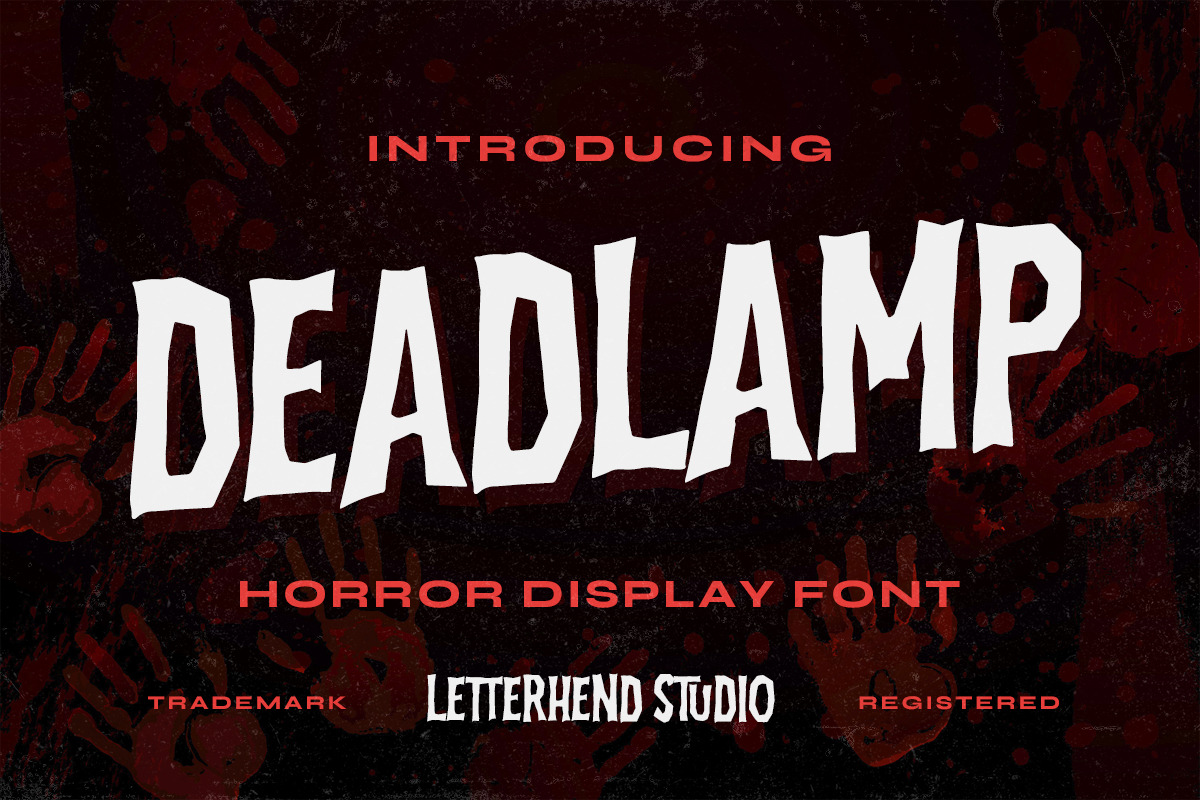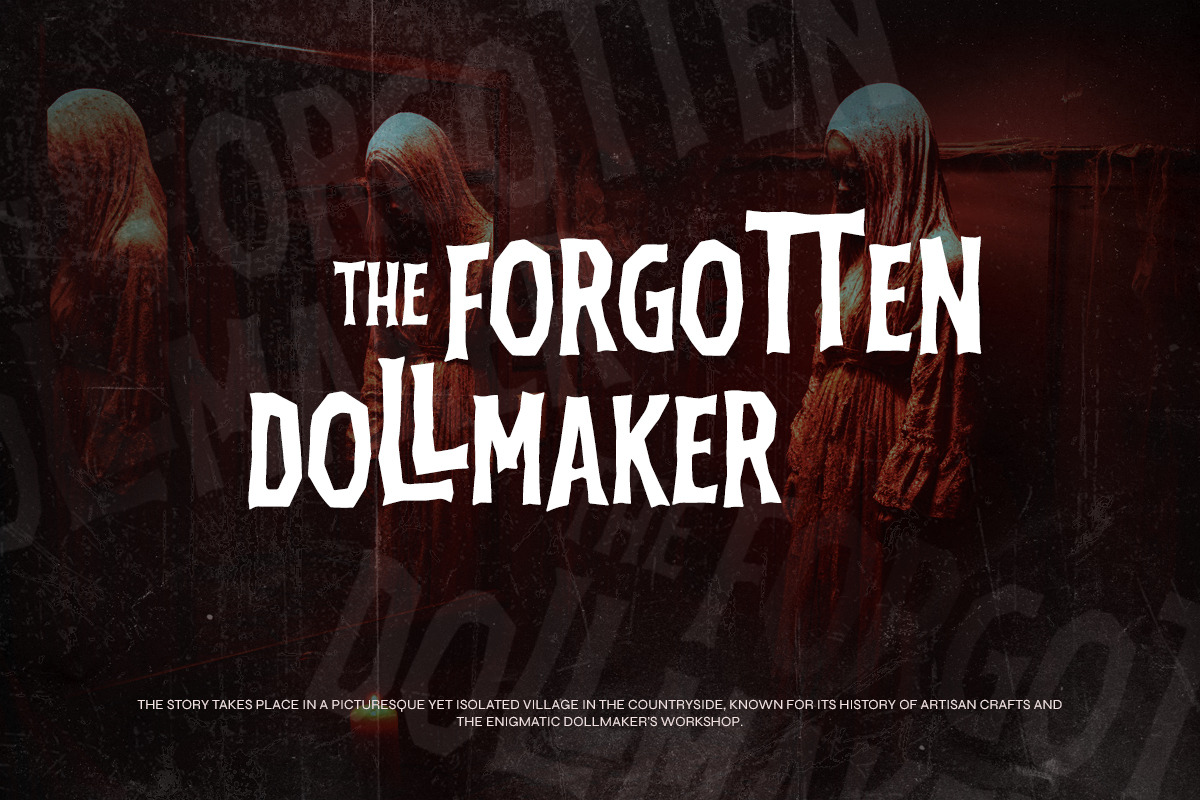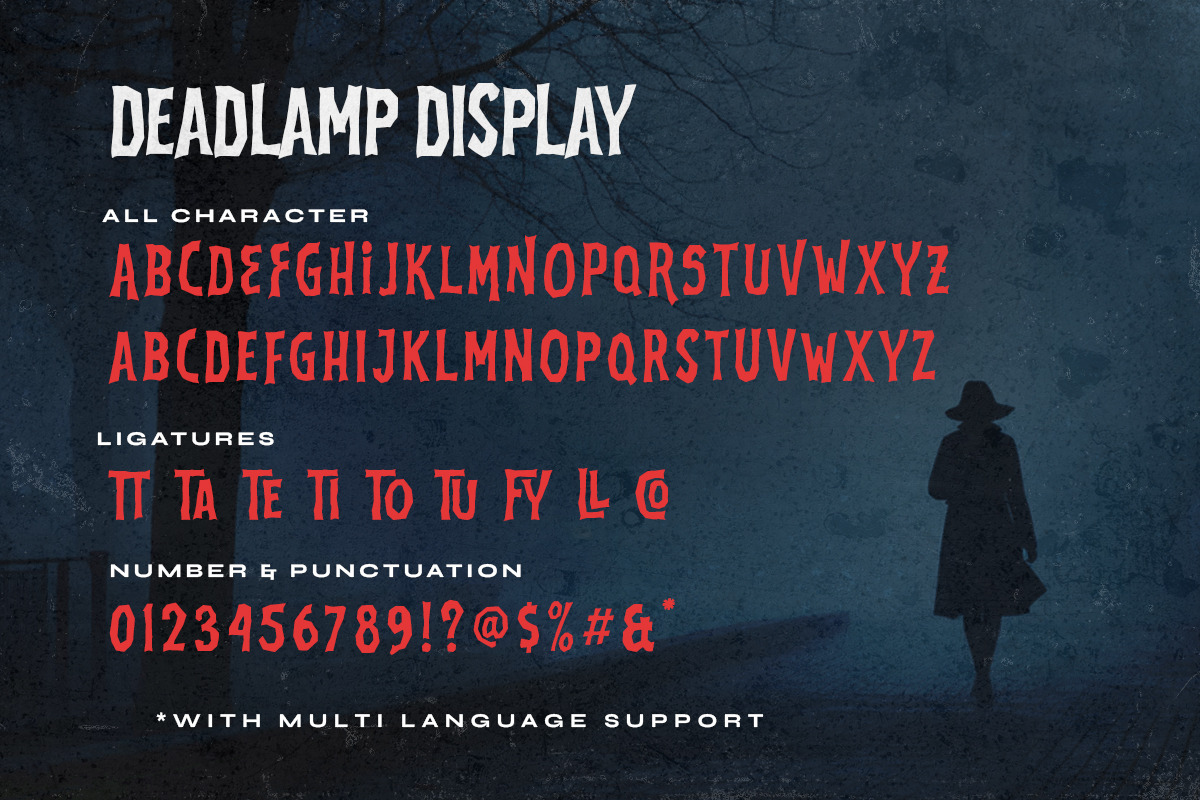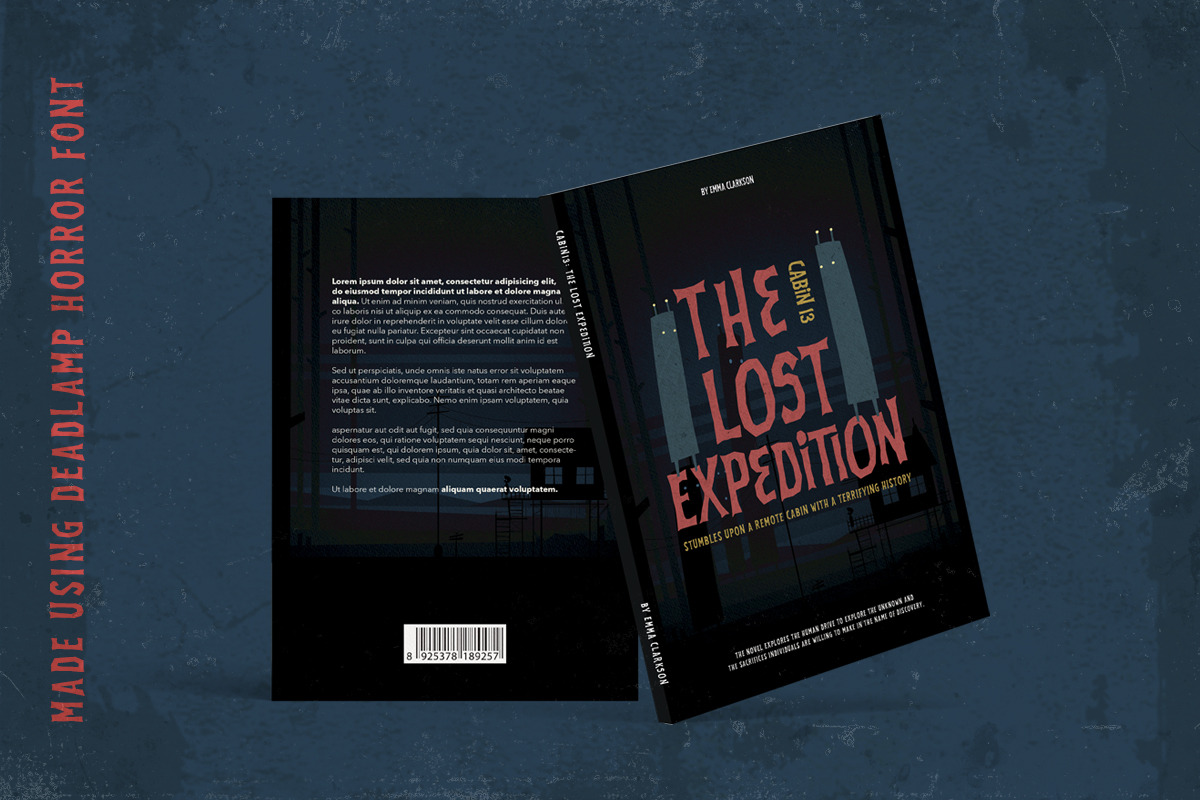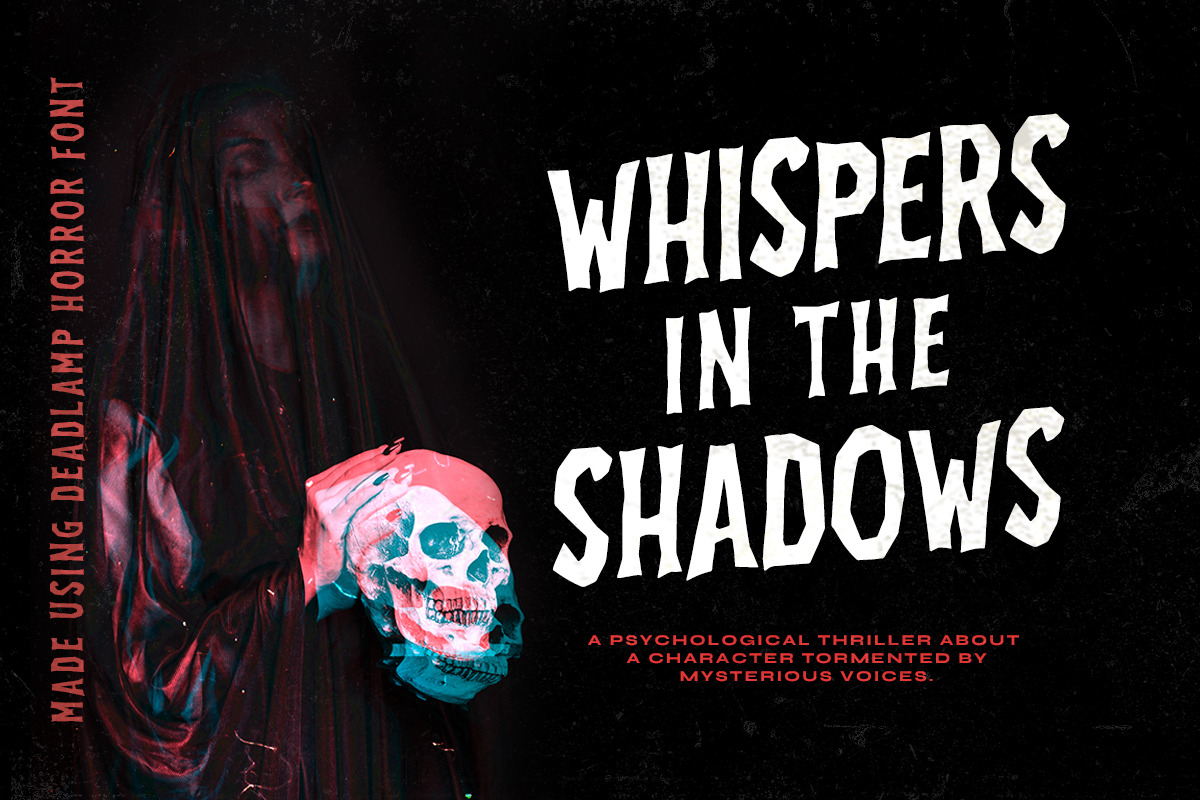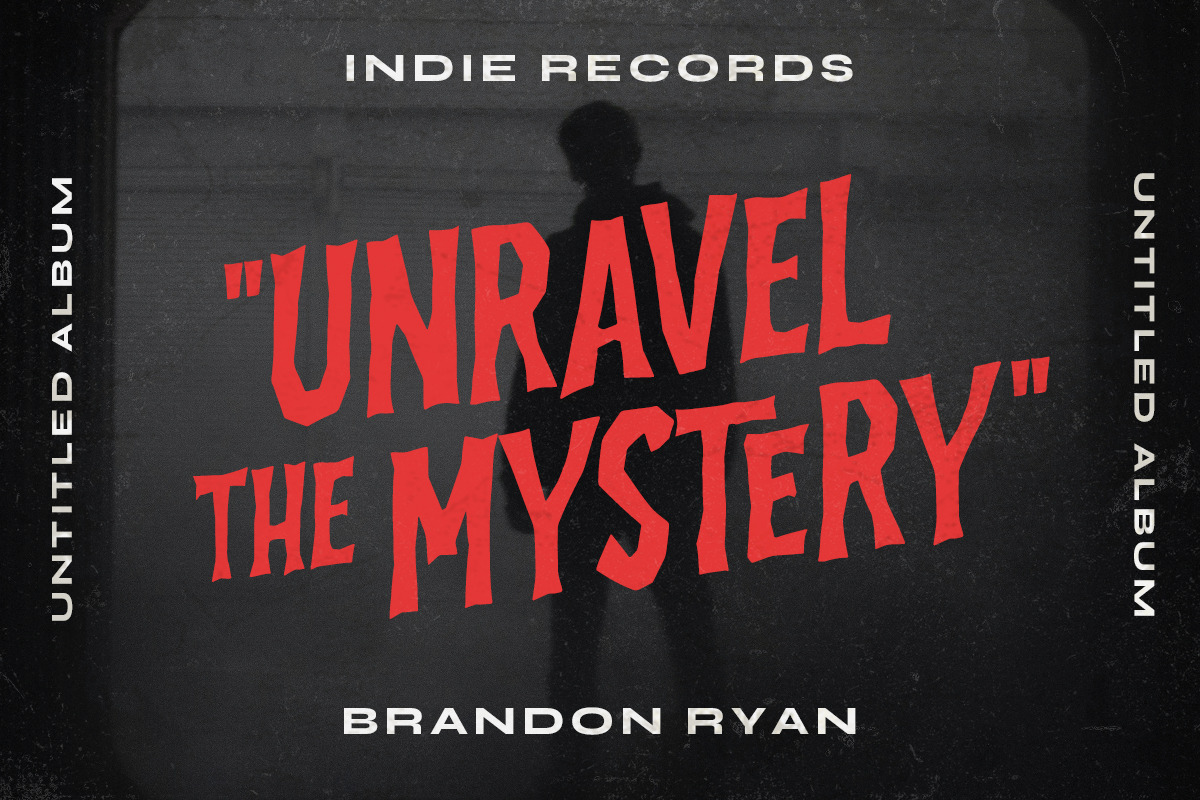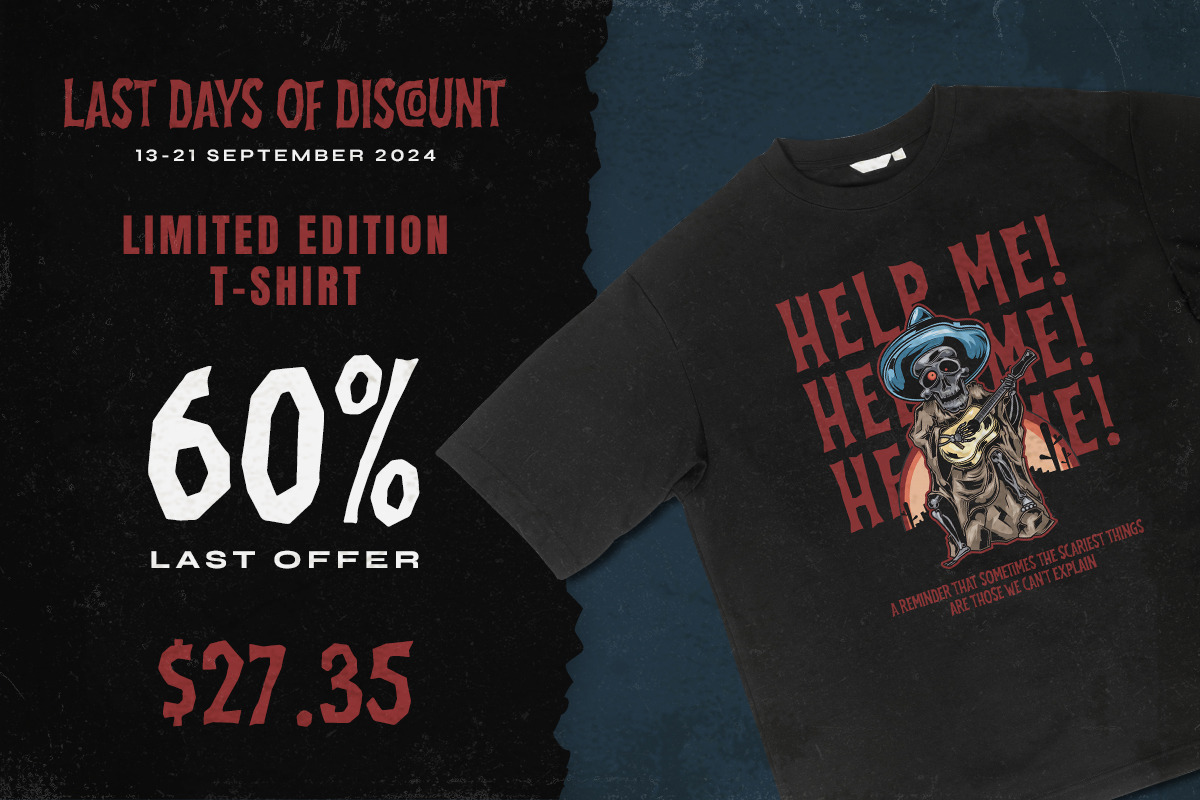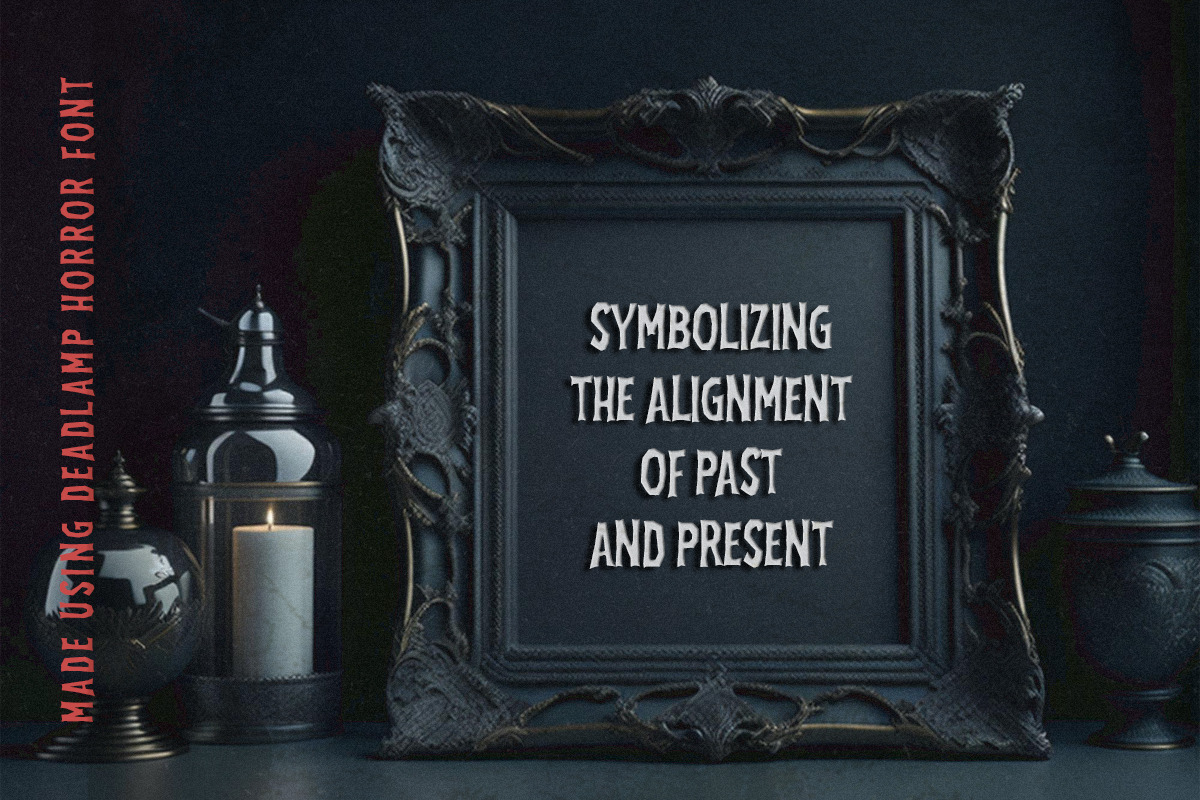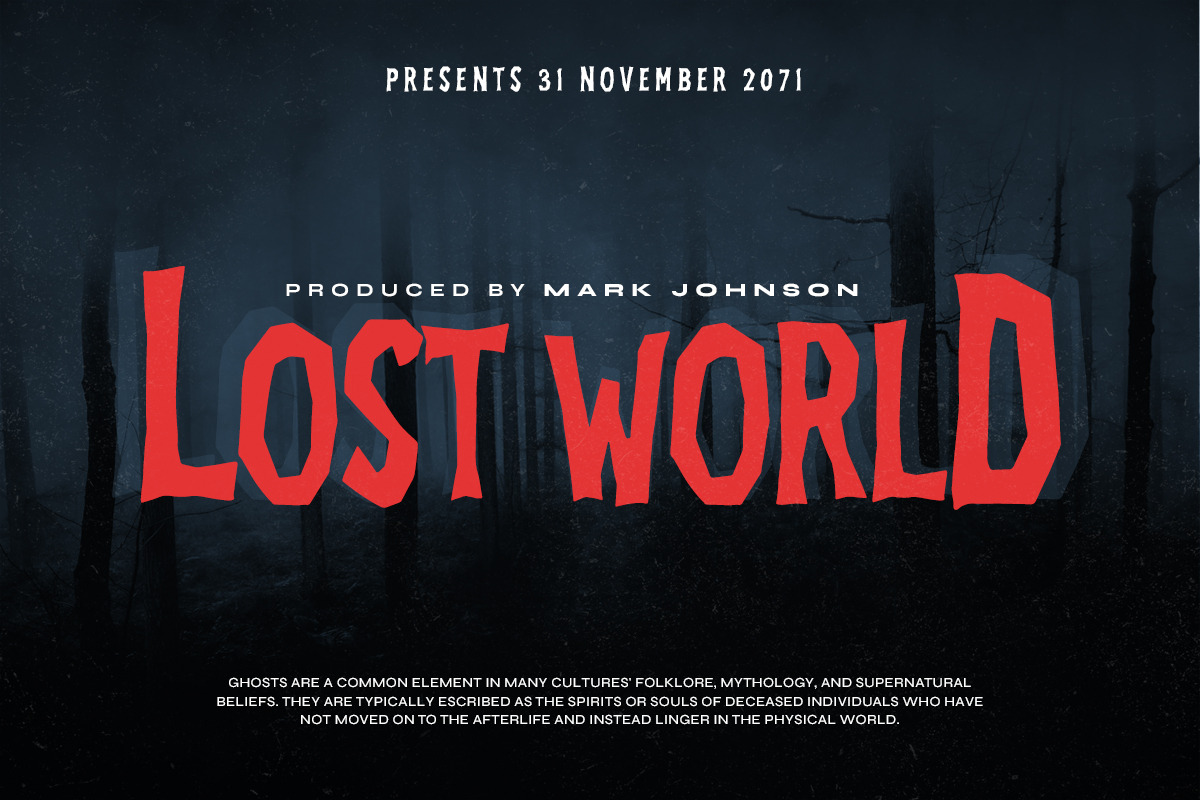
Deadlamp - Horror Display Font
Unveil the depths of terror and embrace the macabre with our latest font creation, Deadlamp – a hauntingly mesmerizing horror display font that beckons to the shadows. Prepare to embark on a spine-tingling journey into the darkest realms of design, where fear and fascination intertwine.